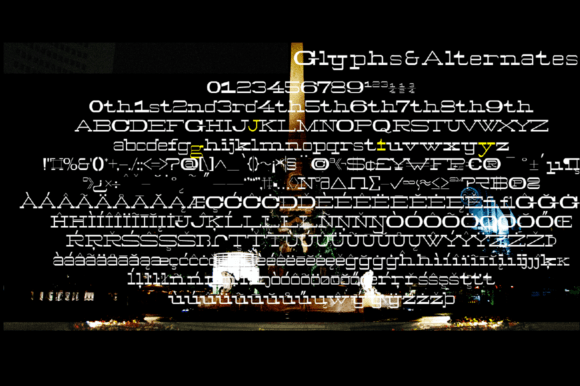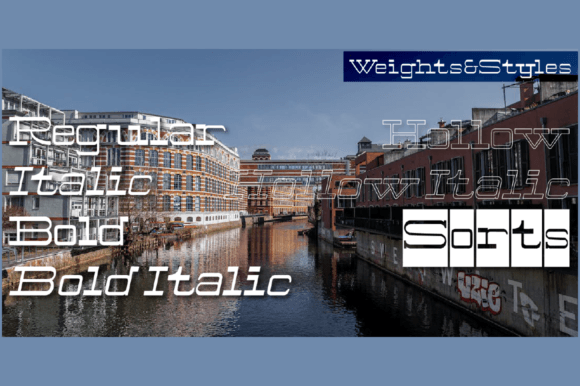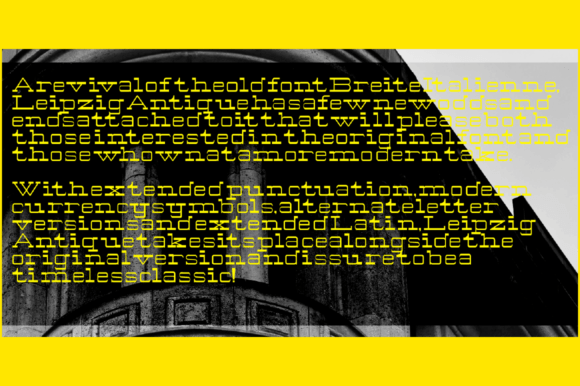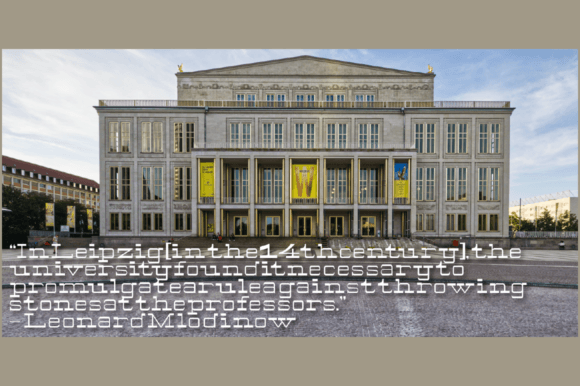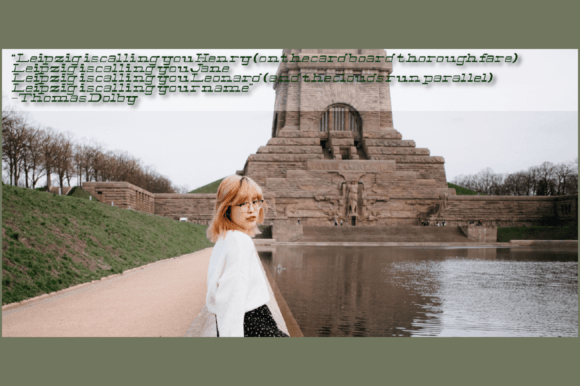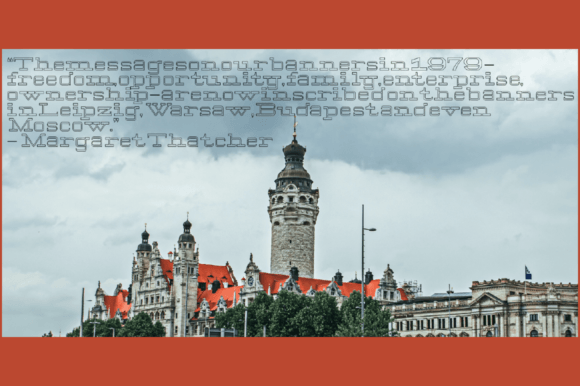
Introduction to Leipzig Antique Bold Font Font
Fonts play a crucial role in design, and the Leipzig Antique Bold Font font is a typeface that brings both character and versatility to any project. Whether you’re working on a branding project, a website, or a print design, the Leipzig Antique Bold Font font offers a unique style that can elevate your work.
| 📌 Font Name | Leipzig Antique Bold Font |
| 👤 Author | Megami Studios |
A revival of the old font Breite Italienne, Leipzig Antique has a few new odds and ends attached to it that will please both those interested in the original font and those who want a more modern take.
With extended punctuation, modern currency symbols, alternate letter versions, and extended Latin, Leipzig Antique takes its place alongside the original version and is sure to be a timeless classic .
Key Features of Leipzig Antique Bold Font Font
Why Choose Leipzig Antique Bold Font Font?
The Leipzig Antique Bold Font font is more than just a typeface – it’s a design tool that helps you communicate your message with style and clarity. Its unique character set and versatile design make it suitable for a wide range of applications, from elegant invitations to bold headlines.
With its carefully crafted letterforms and balanced proportions, the Leipzig Antique Bold Font font ensures readability and visual appeal across all mediums.
What makes Leipzig Antique Bold Font font special?
The Leipzig Antique Bold Font font stands out with its unique design, exceptional readability, and versatility across various design applications.